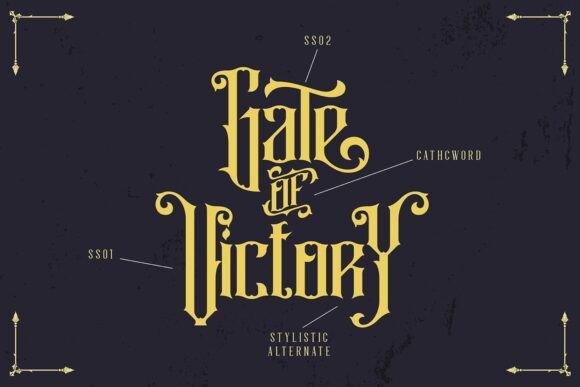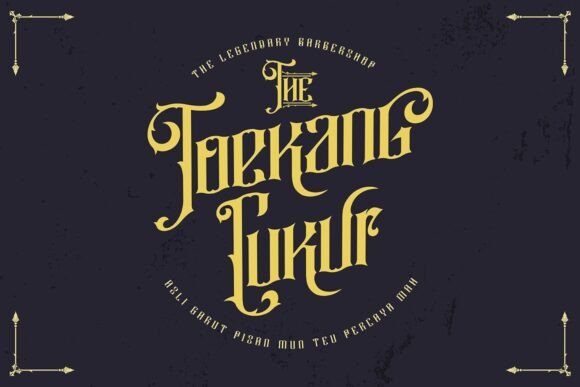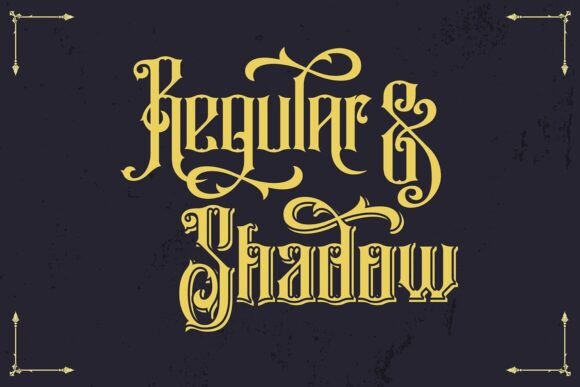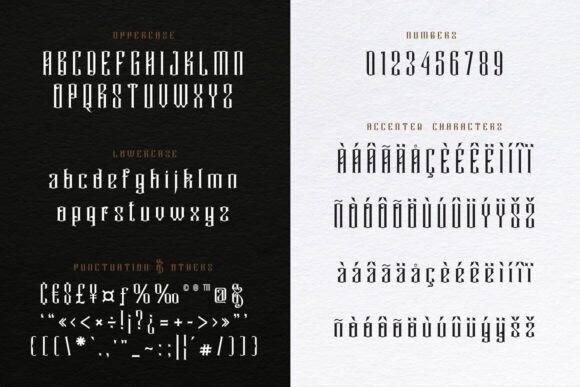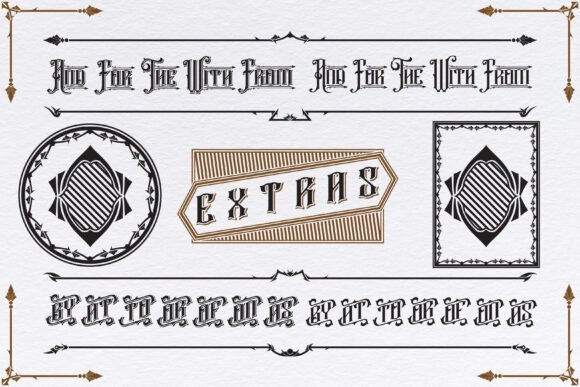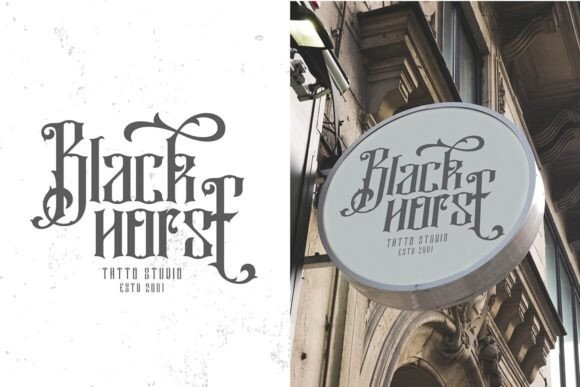
Introduction to Rajawaley Font
Remember that moment when you stumbled upon the perfect font for your creative project? The one that just clicked and elevated your entire design to the next level? For designers, finding that elusive font is a treasure hunt worth every moment. And, we’re excited to introduce you to a new treasure: the Rajawaley Font.
This stunning typeface has been crafted to bring a touch of vintage charm to your designs, making it a valuable resource for any creative endeavor. With its Regular and Shadow styles, you can mix and match to create unique, eye-catching designs. The Rajawaley Font is more than just a design tool – it’s a key to unlocking a world of creative possibilities.
Whether you’re working on a logo, product packaging, or invitation, the Rajawaley Font is the perfect companion for any high-quality design project. With its transparent background and free download option, you can incorporate this design resource into your workflow seamlessly. Get ready to take your designs to the next level with the timeless elegance of the Rajawaley Font.
Key Features of Rajawaley Font
- Unique, hand-drawn design perfect for creative projects
- Designed with a mix of traditional and modern elements for a distinctive look
- Includes multiple styles and weights for added versatility
Honest Review: Rajawaley Font
As a designer, I’m always on the lookout for high-quality design resources to enhance my creative projects. The Rajawaley Font caught my attention, and I decided to give it a try.
- Unique and exotic design aesthetic that adds a touch of cultural flair to my projects
- High quality and detailed typography that stands out even in a crowded design landscape
- Limited font weights and styles, which can restrict design flexibility
Overall, I’m impressed with the Rajawaley Font’s potential as a design resource. While it has its limitations, its unique design and high quality make it a great addition to any creative project. If you’re looking for a free download to spice up your designs, the Rajawaley Font is definitely worth considering.
Tips for Getting the Most Out of Rajawaley Font
To achieve the best results, use the font with a transparent background to ensure seamless integration with your design. Experiment with different font sizes and styles to add visual interest to your project.
The Rajawaley Font is suitable for various creative projects, including:
- Social media graphics and posters
- Book covers and interior design
Alternatives to Rajawaley Font
The Alex Brush Font is a high-quality, elegant script font suitable for creative projects requiring a touch of sophistication. It’s ideal for use in logos, invitations, and other design elements where a refined, handwritten feel is desired. Unlike the Rajawaley Font, which has a more playful and whimsical nature, Alex Brush Font offers a more subtle and understated look.
The Great Vibes Font is a modern, high-quality script font perfect for designers seeking a unique and eye-catching design element. Its versatility makes it suitable for a wide range of creative projects, from posters and flyers to wedding invitations and social media graphics. While the Rajawaley Font has a more exotic and vintage feel, Great Vibes Font offers a fresh and contemporary look.
The Dancing Script Font is a high-quality, elegant script font ideal for designers working on creative projects requiring a touch of drama and flair. Its flowing lines and dynamic feel make it perfect for use in titles, headings, and other design elements where a sense of movement and energy is desired. Unlike the Rajawaley Font, which has a more playful and casual nature, Dancing Script Font offers a more sophisticated and refined look.
The Pacifico Font is a high-quality, elegant script font suitable for designers seeking a unique and sophisticated design element. Its clean lines and modern feel make it perfect for use in logos, branding materials, and other design elements where a sense of calm and serenity is desired. While the Rajawaley Font has a more exotic and vintage feel, Pacifico Font offers a fresh and modern look.